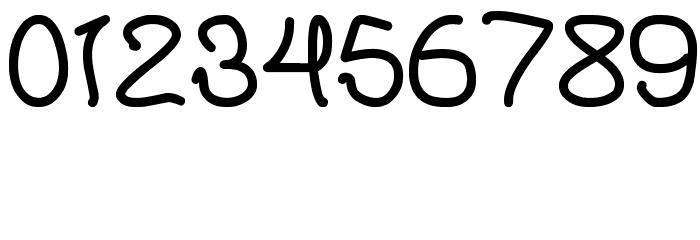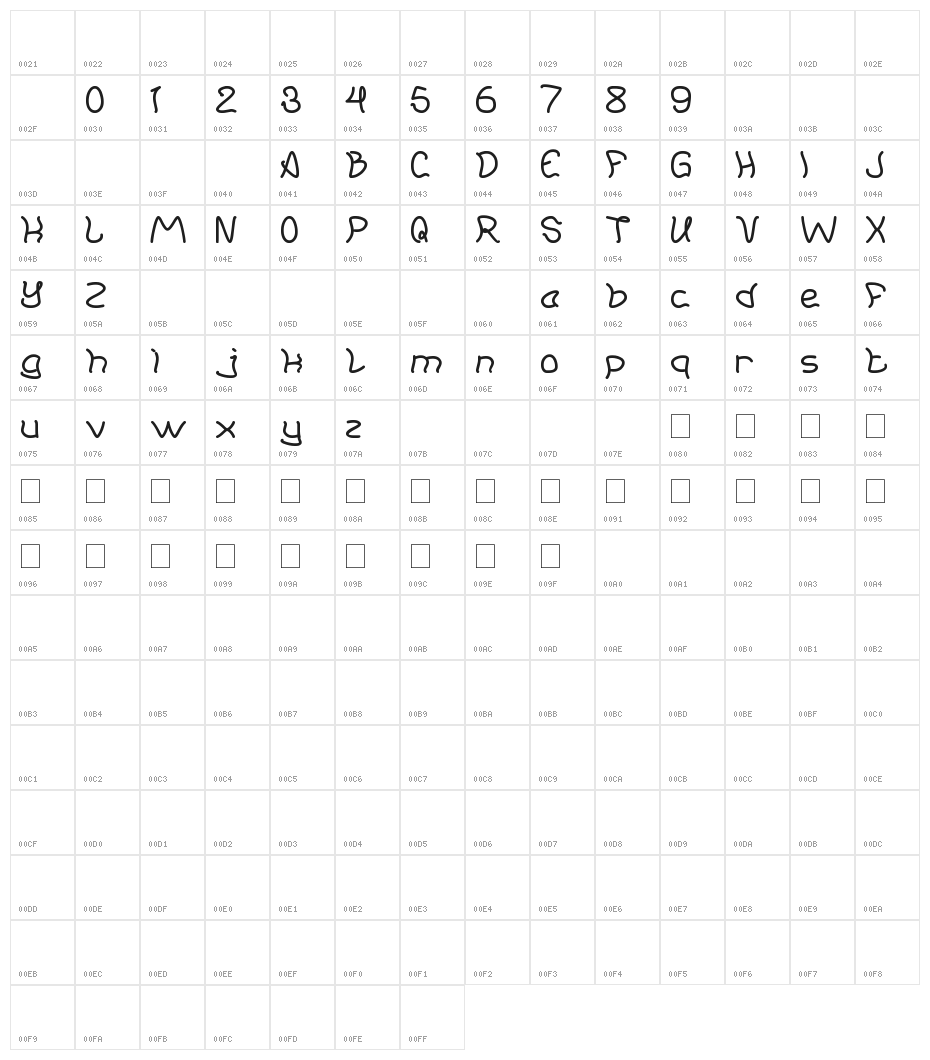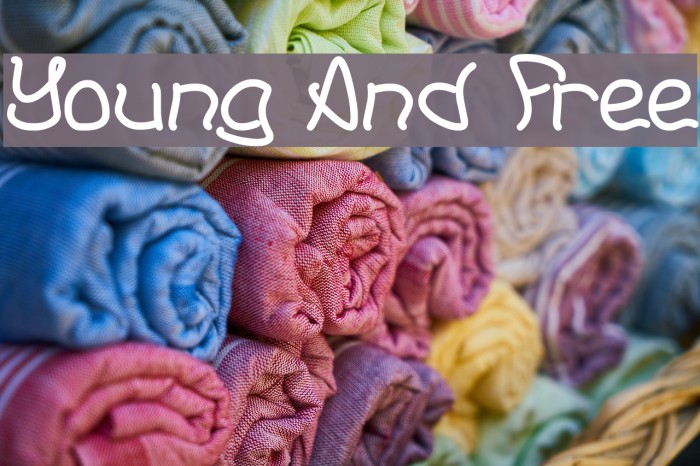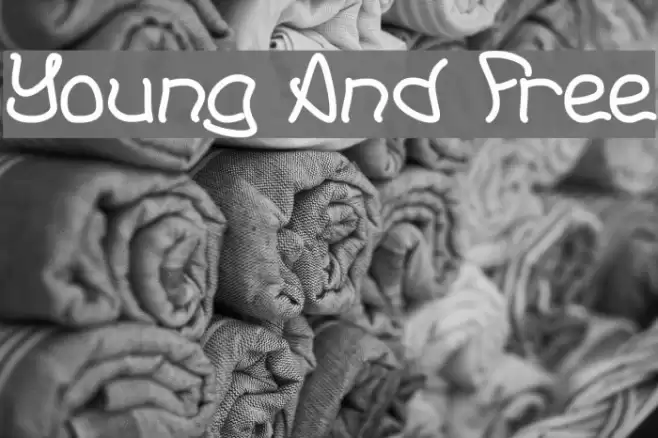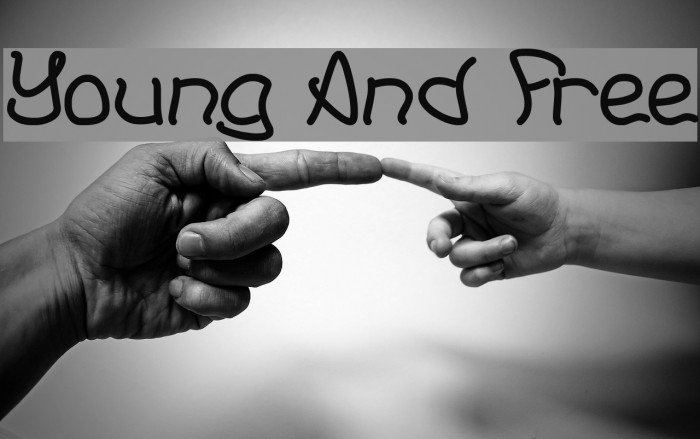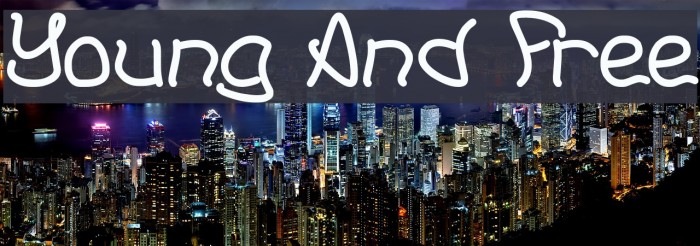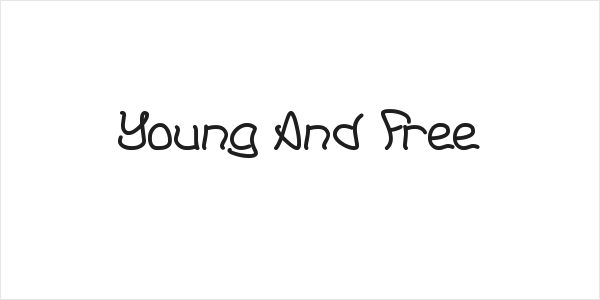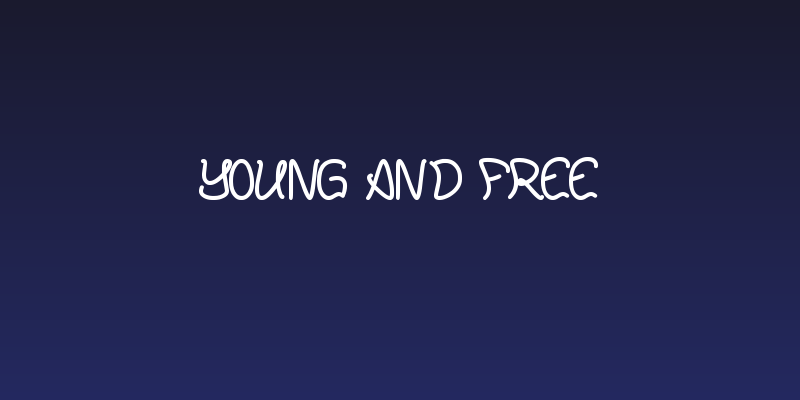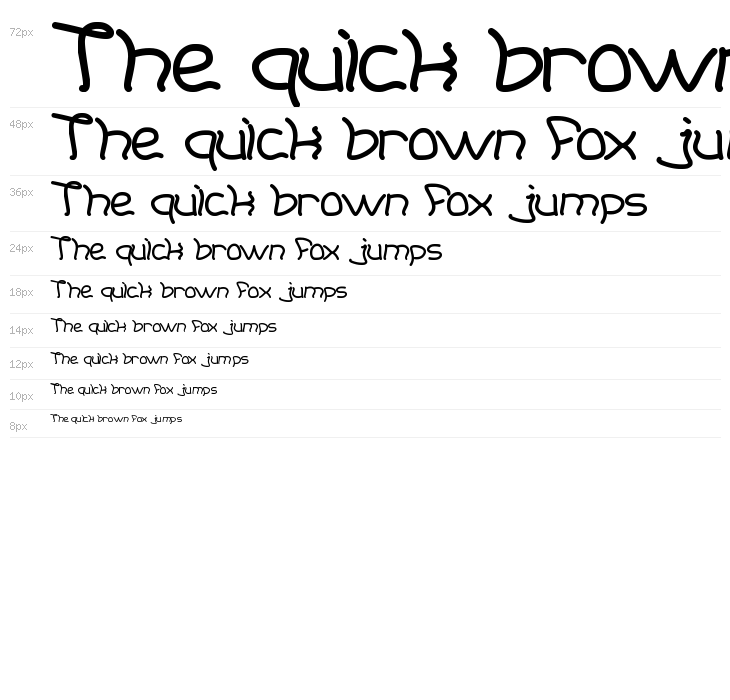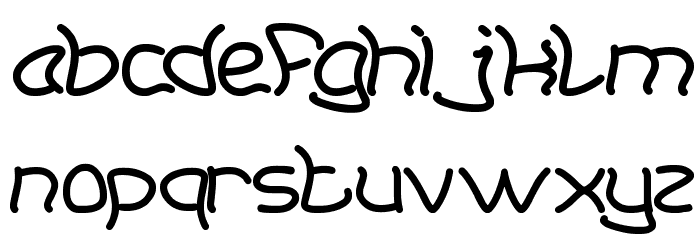
Young And Free Font
Young And Free Description
This playful and energetic font features a handwritten style with a youthful flair. The characters are bold and rounded, giving them a friendly and approachable appearance. The uppercase letters have a whimsical quality, with some strokes extending beyond the baseline or cap height, adding to the font's dynamic nature. The lowercase letters maintain a consistent flow, enhancing readability while retaining the font's lively character. Numbers are equally rounded and maintain the playful theme. The overall design is casual yet distinctive, making it suitable for projects that require a touch of fun and creativity.
| Proposed Projects | Ideal for children's books, playful branding, casual invitations, and creative posters. |